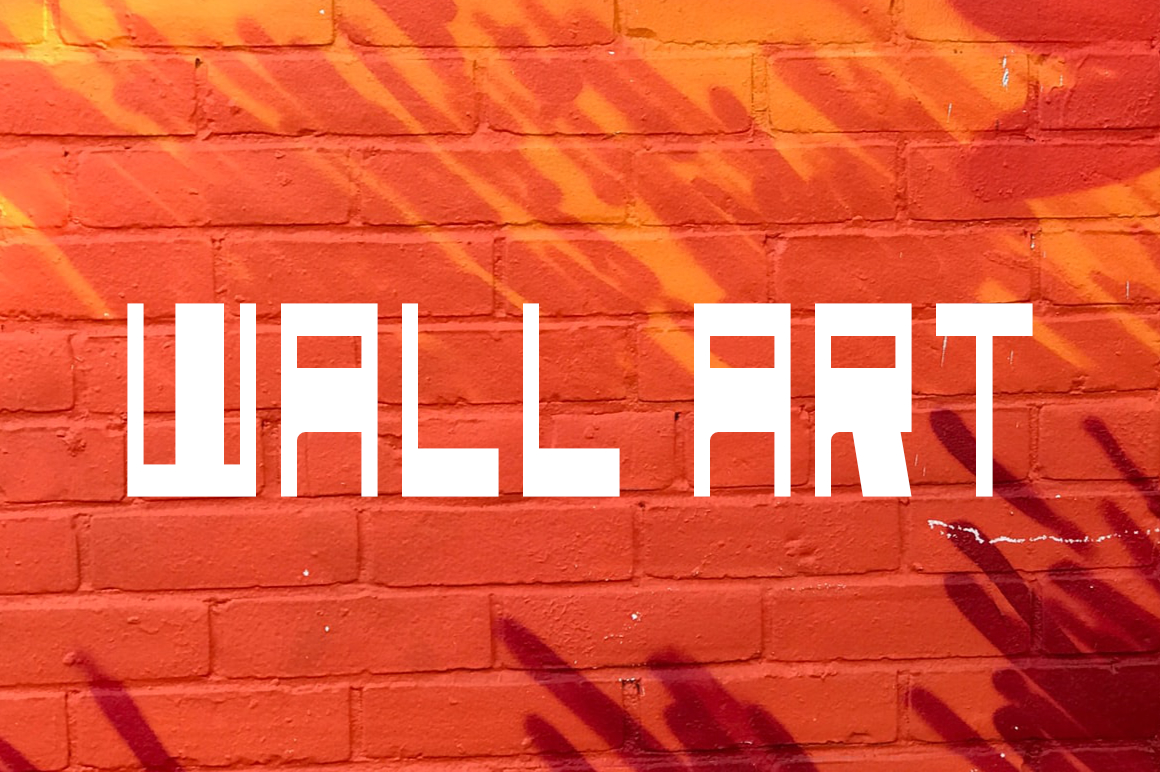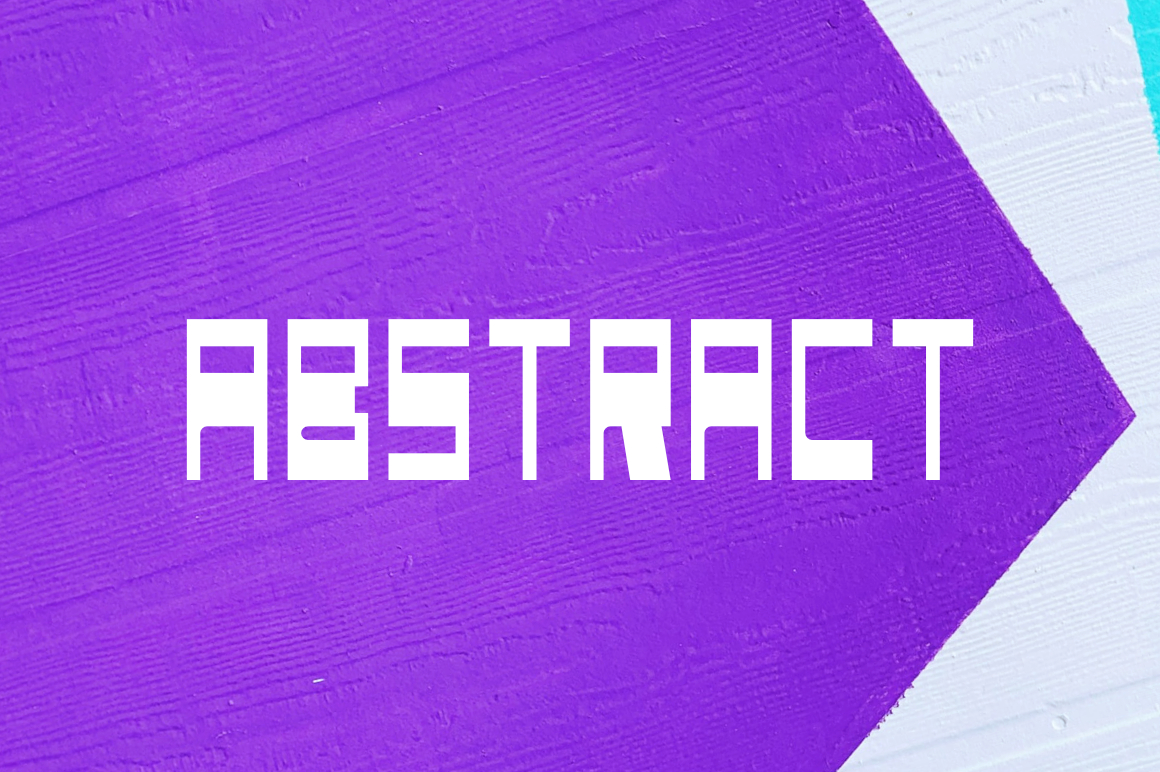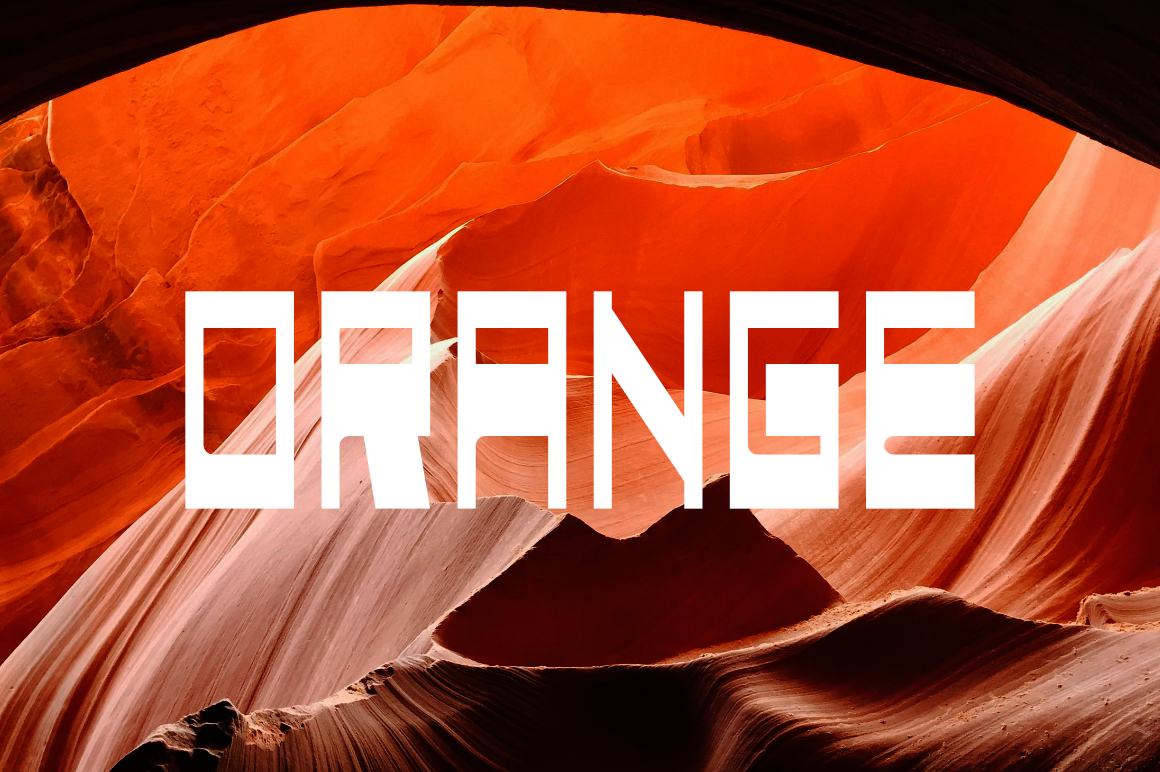
Faqro Font
Faqro Display Font
It’s a cool and casual looking display font. No matter the topic, this font will be an incredible asset to your fonts’ library, as it has the potential to elevate any creation.